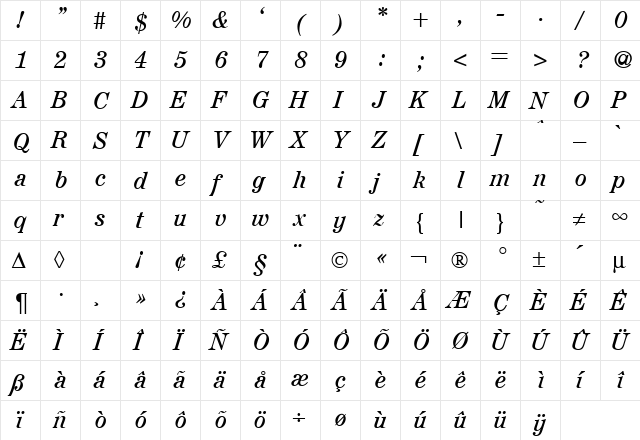
AureliusSerif RegularItalic
Design Context for AureliusSerif Typeface
AureliusSerif carries the refined structure of traditional serif typography, with bracketed terminals and considered proportions that communicate credibility and craft. The dynamic lean of this cut emphasises speed and emphasis in any layout.